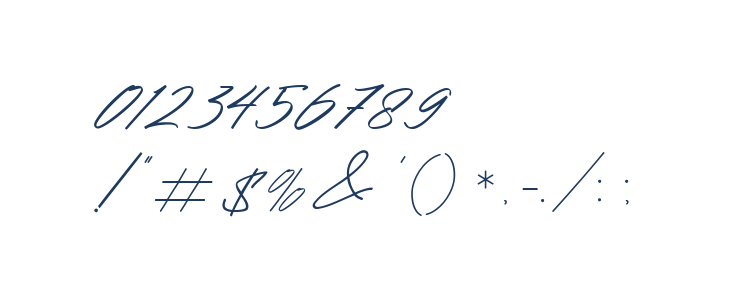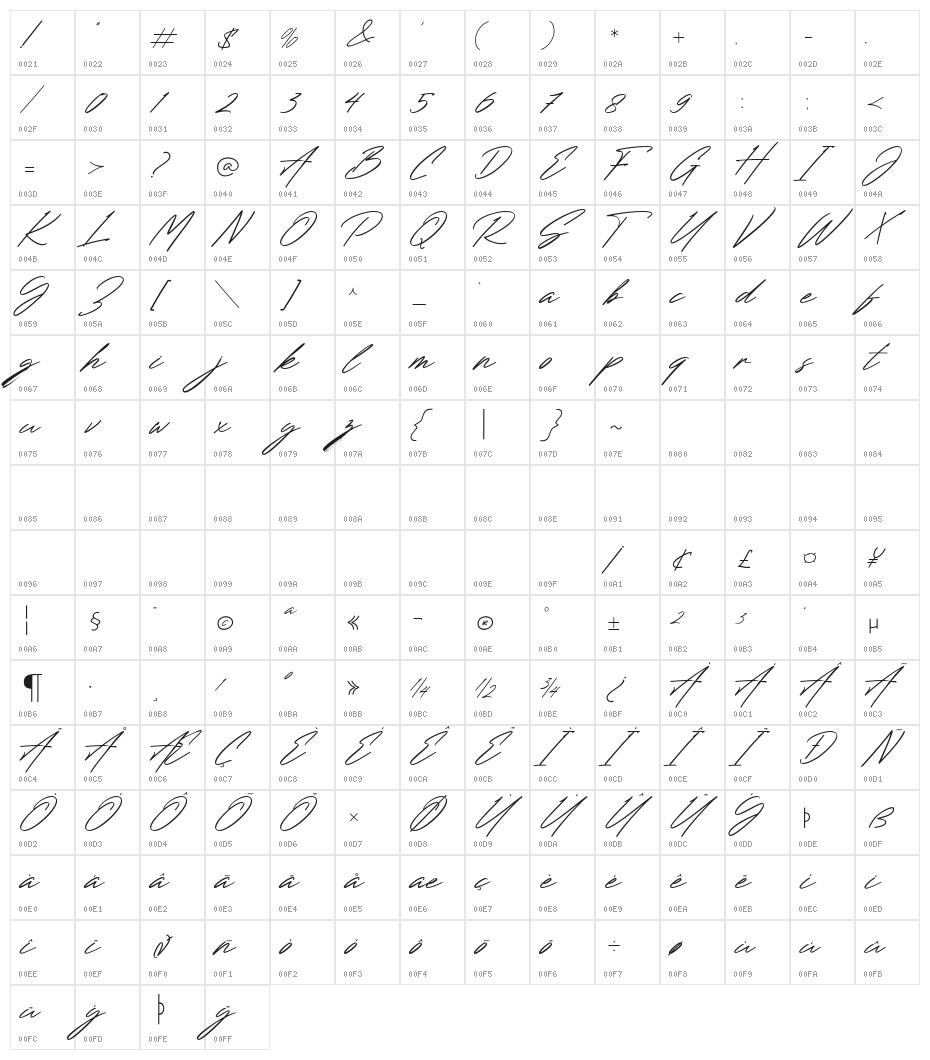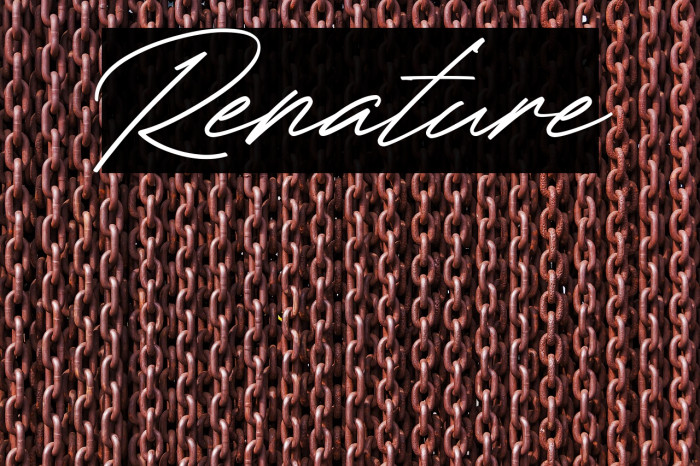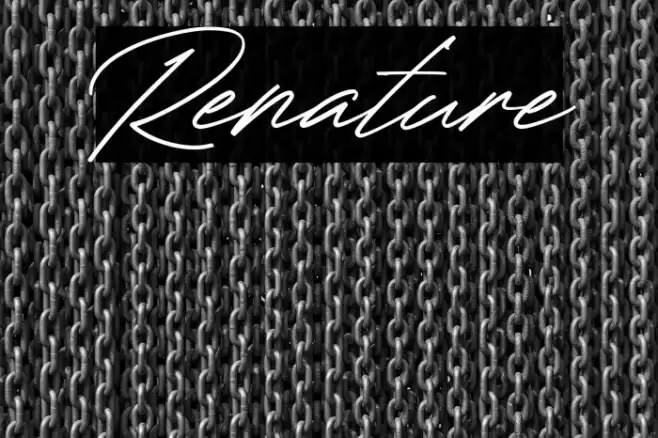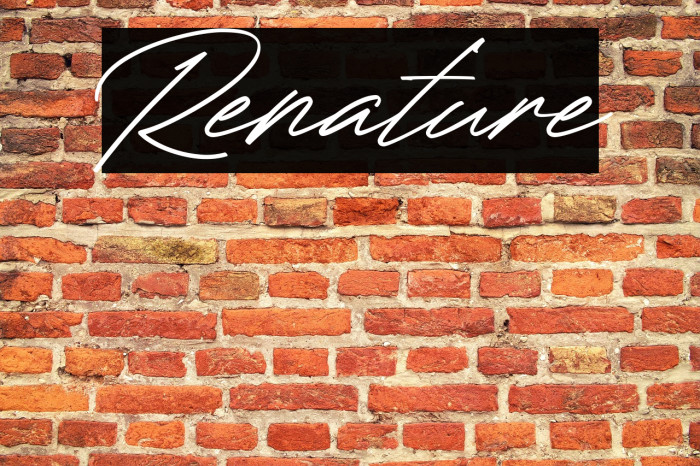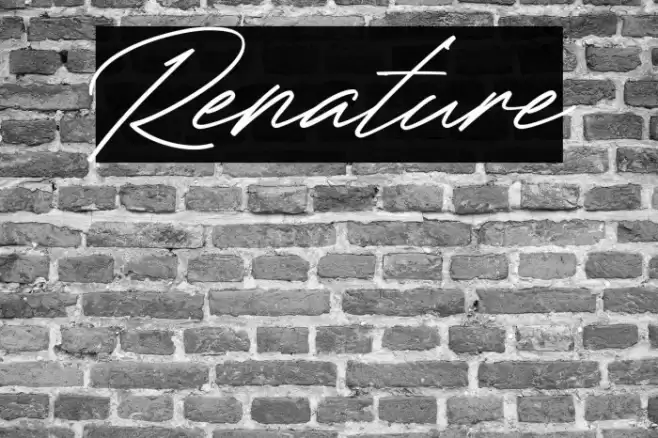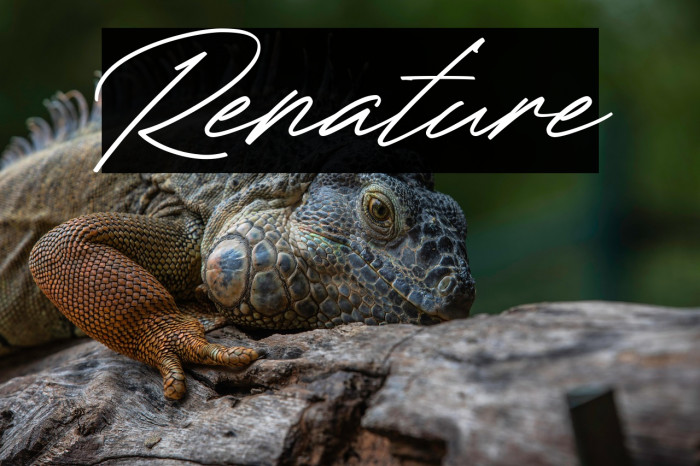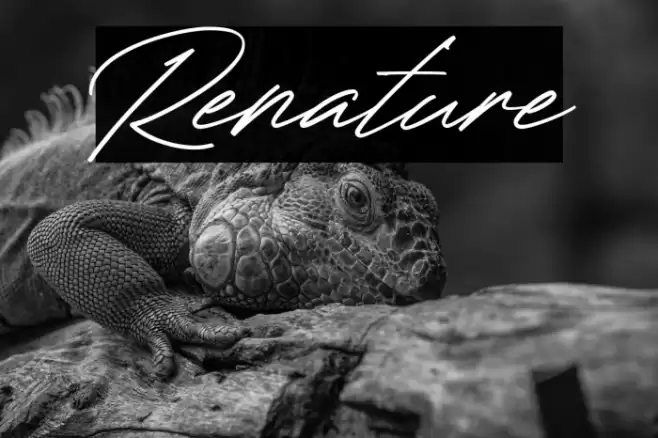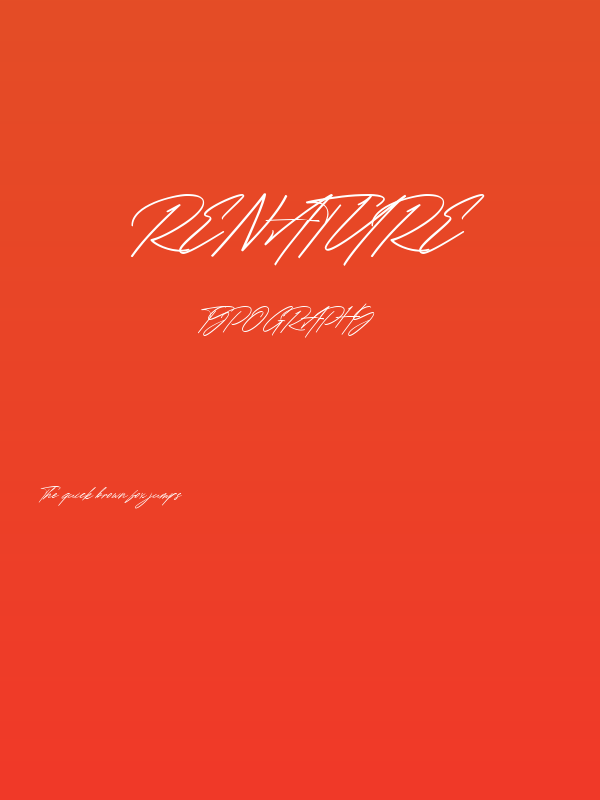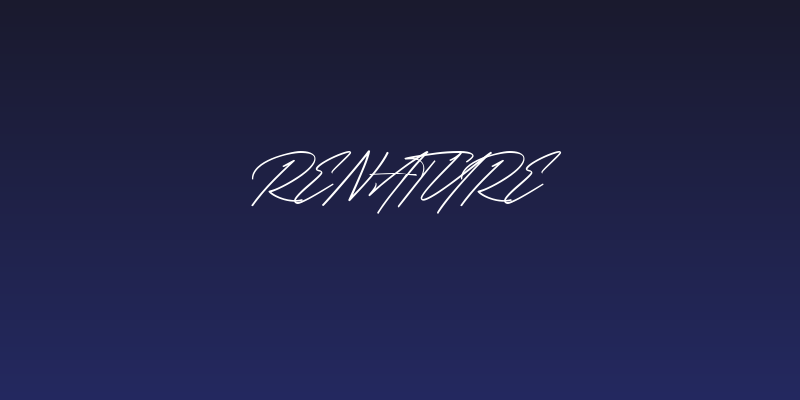
Renature Font
Renature Description
This font exudes a dynamic and fluid style, characterized by its cursive script that mimics elegant handwriting. The letters are interconnected with smooth, flowing strokes, giving it a sense of movement and grace. The uppercase letters maintain a consistent height, while the lowercase letters vary slightly in size, adding to the natural handwritten feel. The numerals and special characters are crafted with the same fluidity, ensuring a cohesive look across all elements. The overall design is both sophisticated and approachable, making it suitable for a variety of creative applications.